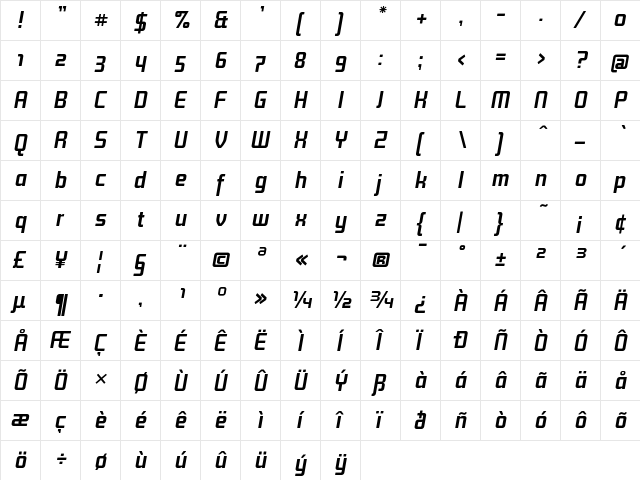
TitanText Bold Italic
Design Context for TitanText Typeface
TitanText is a composed and adaptable typeface that performs quietly and consistently across a wide range of design contexts. The slanted form adds forward momentum and visual energy. The heavy weight commands attention and anchors typographic hierarchies.
Pro Tip: Try TitanText for annotation and caption copy alongside an upright companion — the contrast in angle creates a dynamic but ordered typographic system.